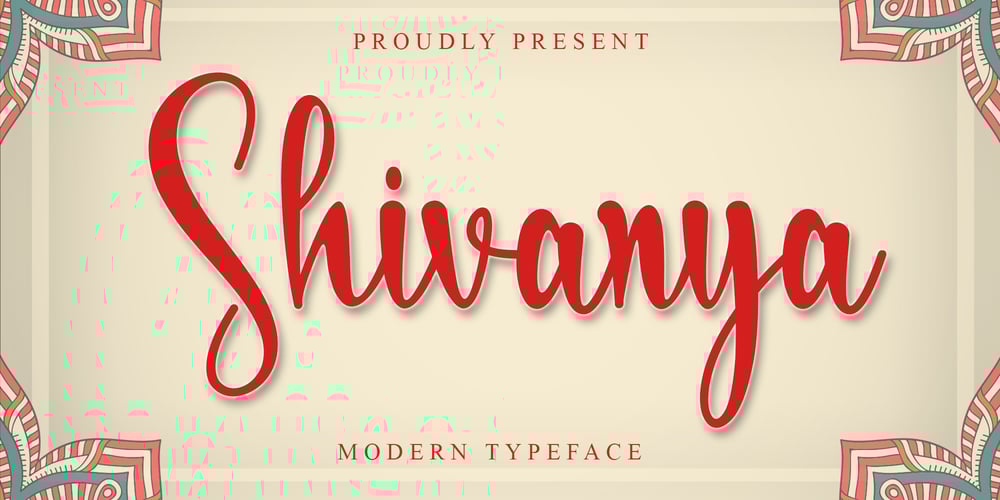
Shivanya Font Family was designed by Harjuno Kristanto and published by Arkrist Letter. Shivanya contains 1 styles and family package options. Shivanya is a lovely and delicate script font that exudes elegance and class. This font was particularly crafted for those who need a beautiful and refreshing look to their designs. Shivanya is PUA encoded which means you can access all of the amazing glyphs and ligatures with ease!